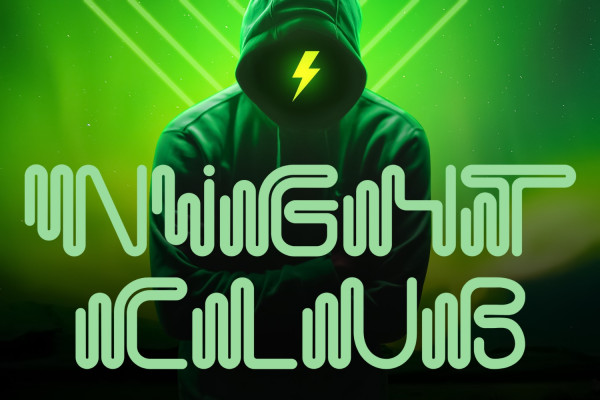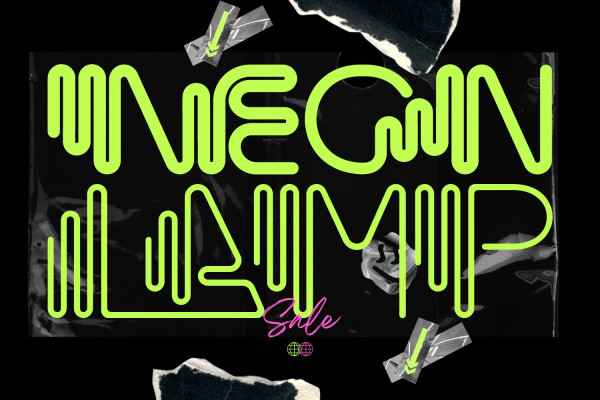
Neon Lamp Font
Neon Lamp Font is a decorative neon font inspired by real world neon light signs. It features geometric letter forms with smooth rounded corners, true to real neon tubes. This font is perfect for your project and allows you to create designs, headlines, posters, logos, badges, t-shirts and many more that are beautiful. It is also best used for posts, logos, posters, certificates, labels and more.
Neon Lamp was built with OpenType features and includes 100 ligatures, alternate, numbers, punctuation, and it also supports other languages.